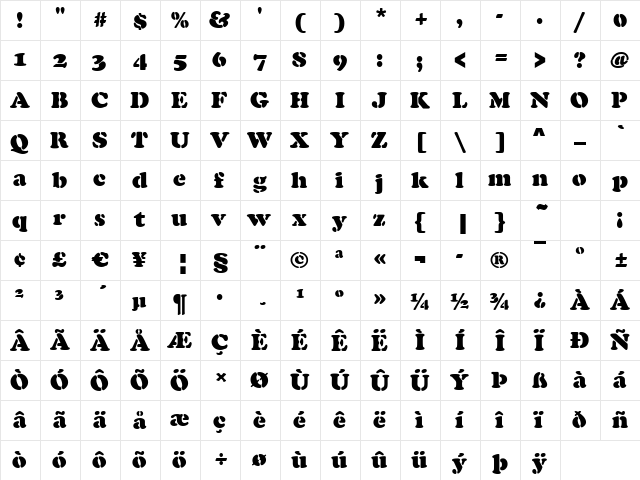
Cooper-Black-Stencil Regular
Design Context for Cooper-Black-Stencil Typeface
Cooper-Black-Stencil borrows the utilitarian aesthetic of stencil lettering, with its characteristic cutaways and no-frills construction lending an industrial edge.
Ideal for industrial branding, streetwear, military-adjacent aesthetics, and urban signage projects.
Pro Tip: Pair Cooper-Black-Stencil with raw, utilitarian design elements — exposed concrete textures, flat colour, and minimal ornamentation suit it well.